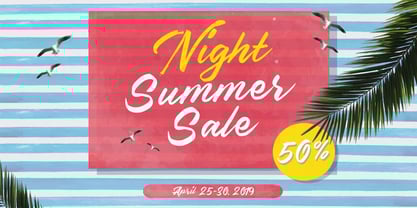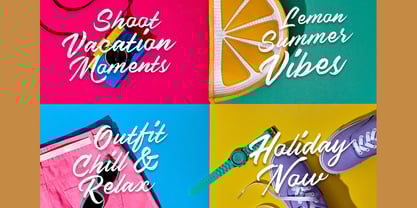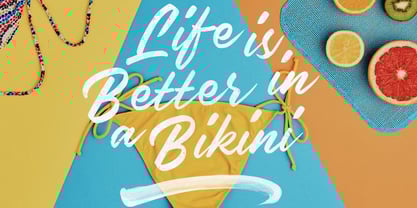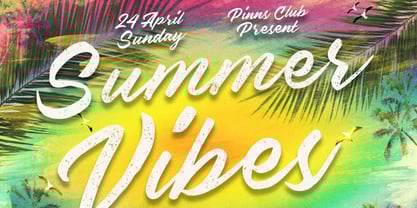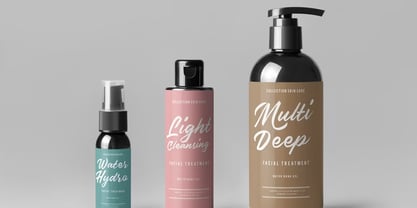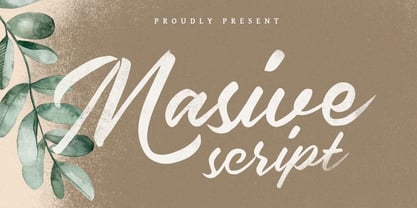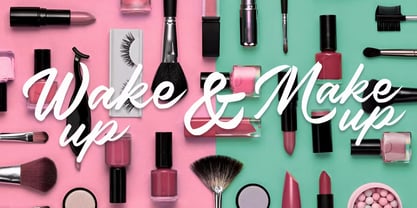
Masive Script
by Maghrib Type
Masive Script is a bold and expressive brush script font designed to bring a natural and dynamic touch to your creative work. Featuring thick strokes, smooth curves, and a subtle vintage texture, this font evokes a handcrafted feel that is both elegant and impactful.
Each character is crafted with a brush-style fluidity, resulting in an organic flow that adds warmth and personality to any project. Masive Script is perfect for branding, packaging, wedding invitations, editorial designs, social media quotes, and other creative applications that call for an artistic and emotional tone.
Key Features:
• Striking uppercase letters with strong visual presence
• Well-balanced, legible lowercase characters
• Subtle textured finish for an authentic brush look
• Multilingual support with a wide range of characters
Masive Script is more than just a font — it’s a creative statement that enhances your visual storytelling with elegance and character.